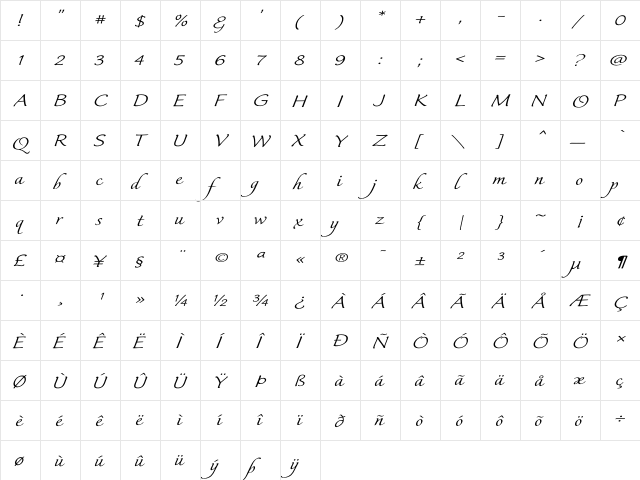
Italican Script Expand Regular
Design Context for Italican Script Expand Typeface
Italican Script Expand brings a calligraphic fluidity to the page — its connecting strokes and expressive curves give it an unmistakably human quality.
Font Pairing: Combine Italican Script Expand with a simple geometric sans for maximum contrast — the tension between flowing curves and clean structure is a classic typographic pairing.
Pro Tip: Use Italican Script Expand for short runs of text — names, titles, or taglines. Extended body copy in script faces tires the eye quickly.